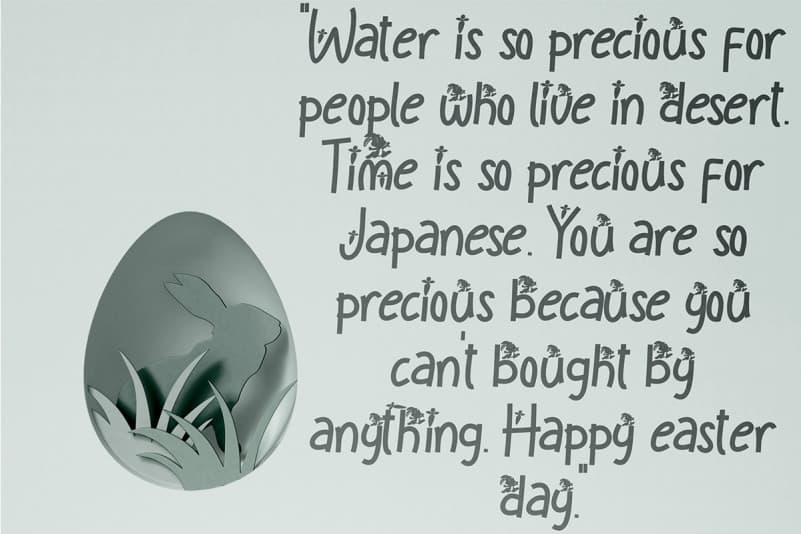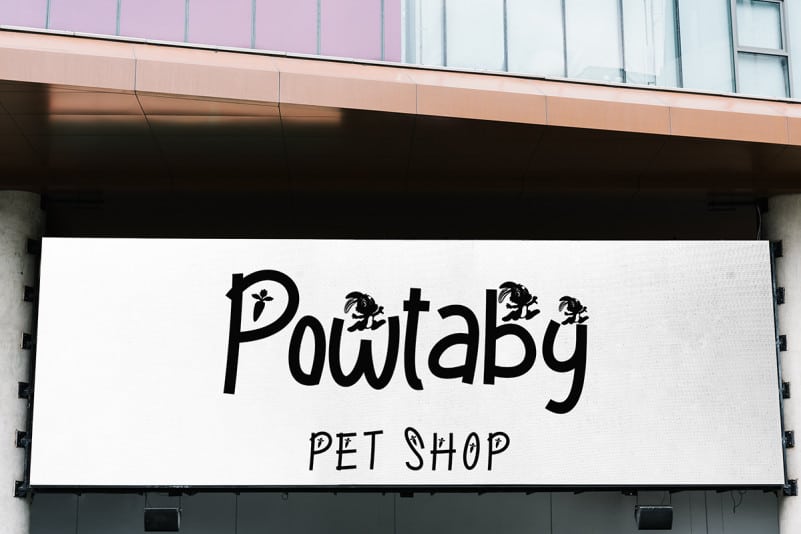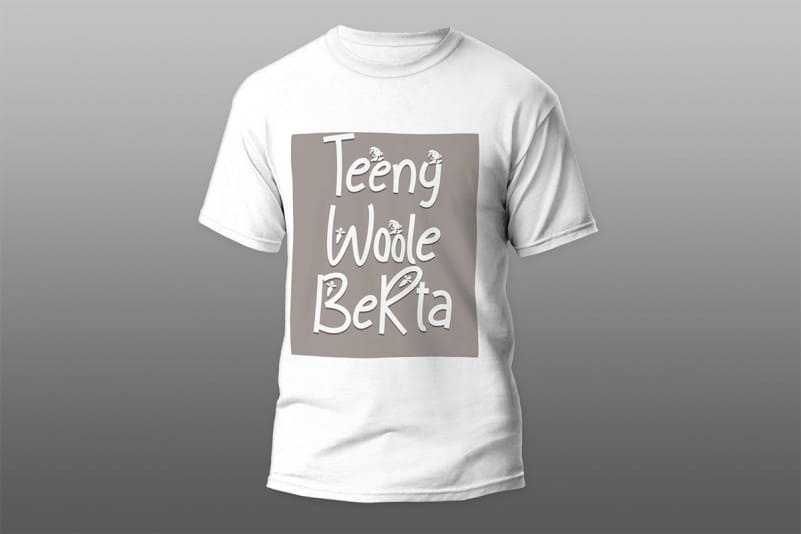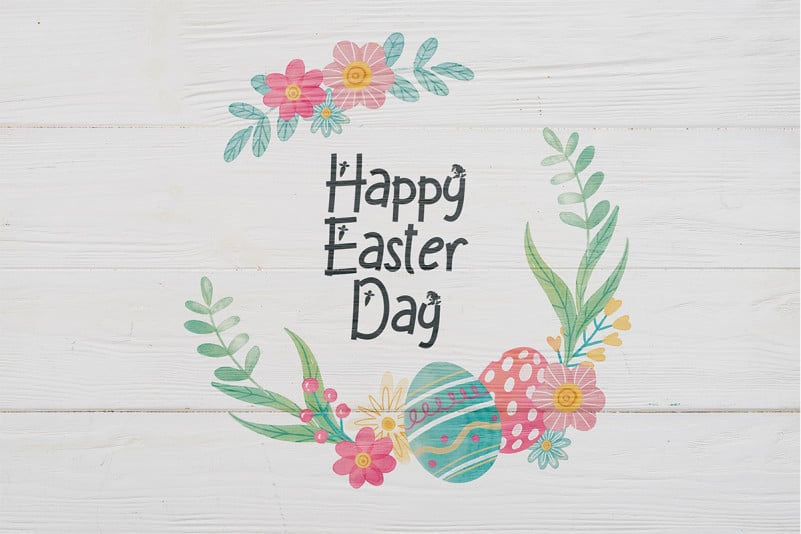
Smile Rabbit Display Font
Smile Rabbit Display Font is a unique and beautiful display font. This font is very easy to use. Embellishments on letters will automatically appear as you type. This font is perfect for Easter celebrations, book titles, animal letters, posters, prints, logos, posters, banners, and branding.